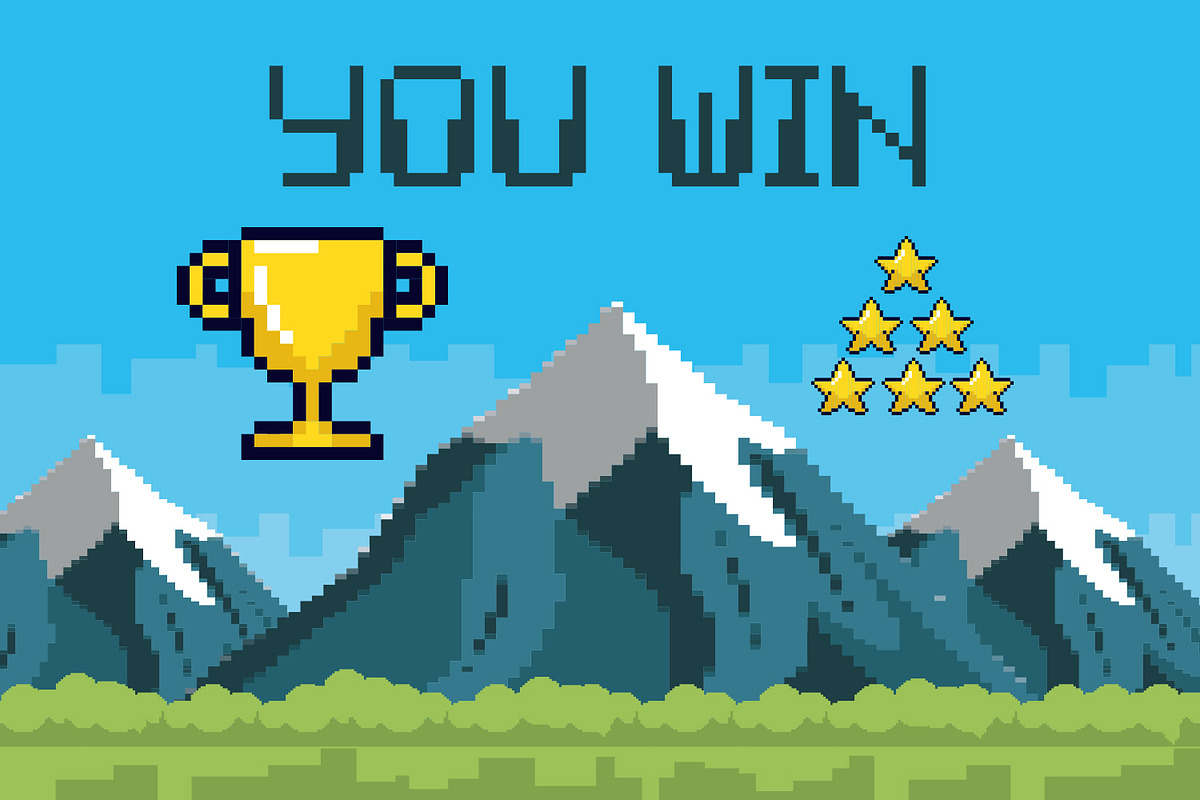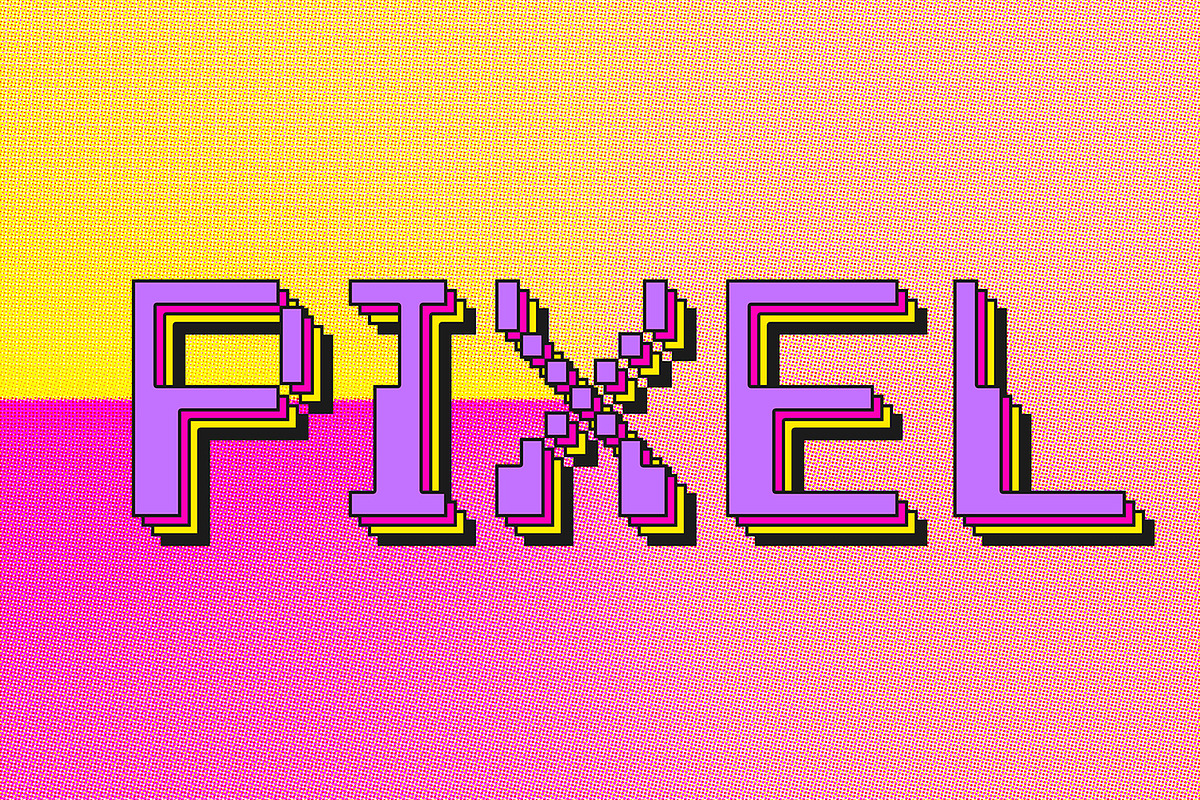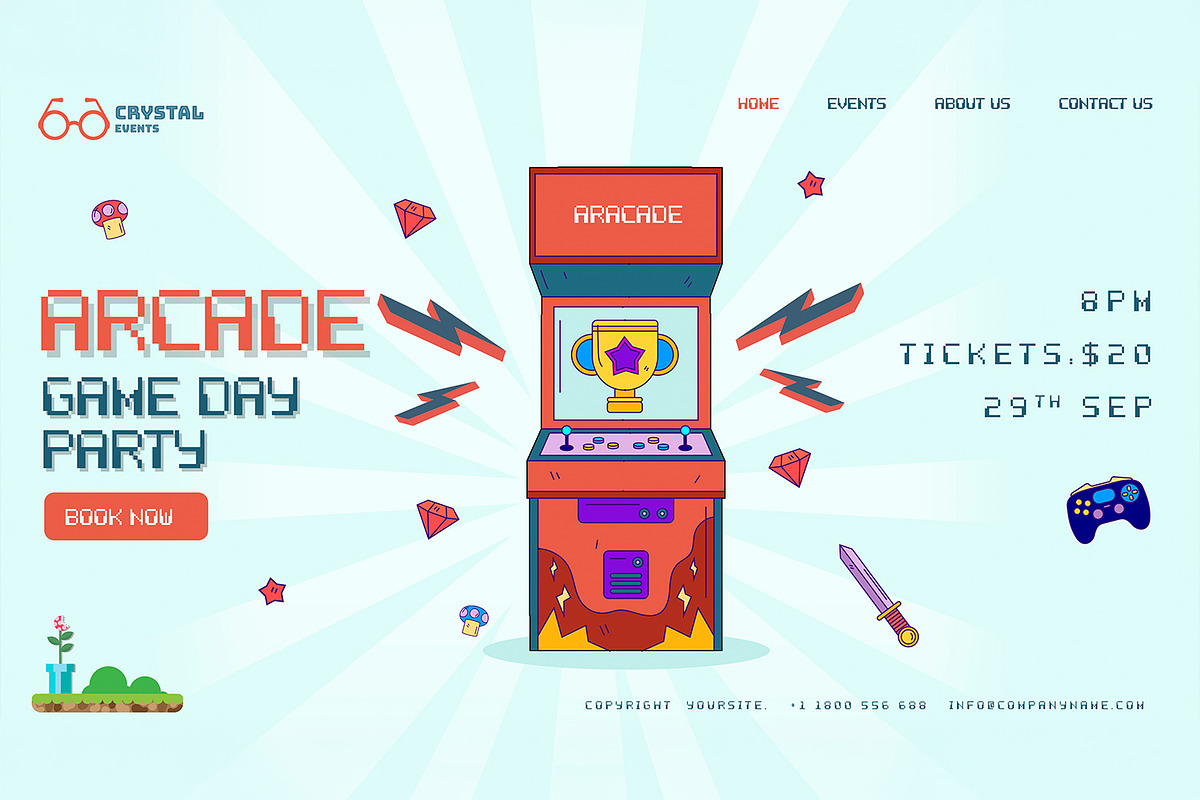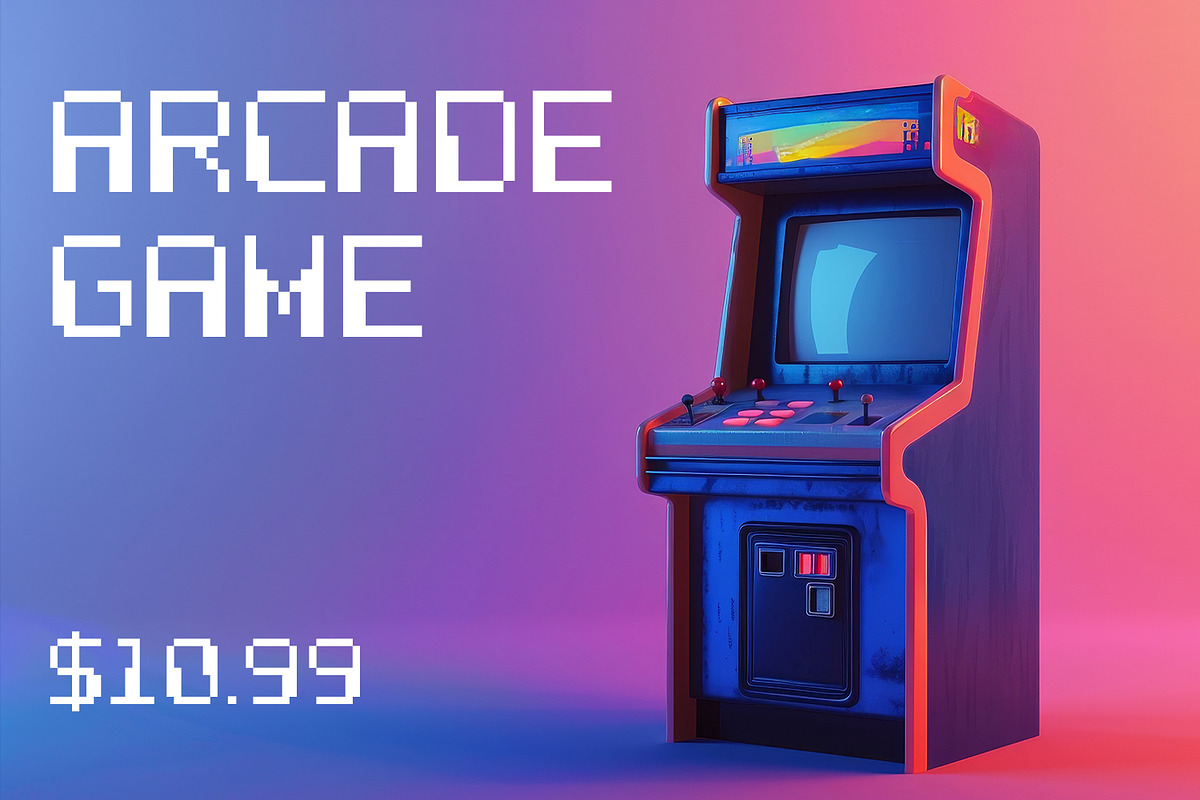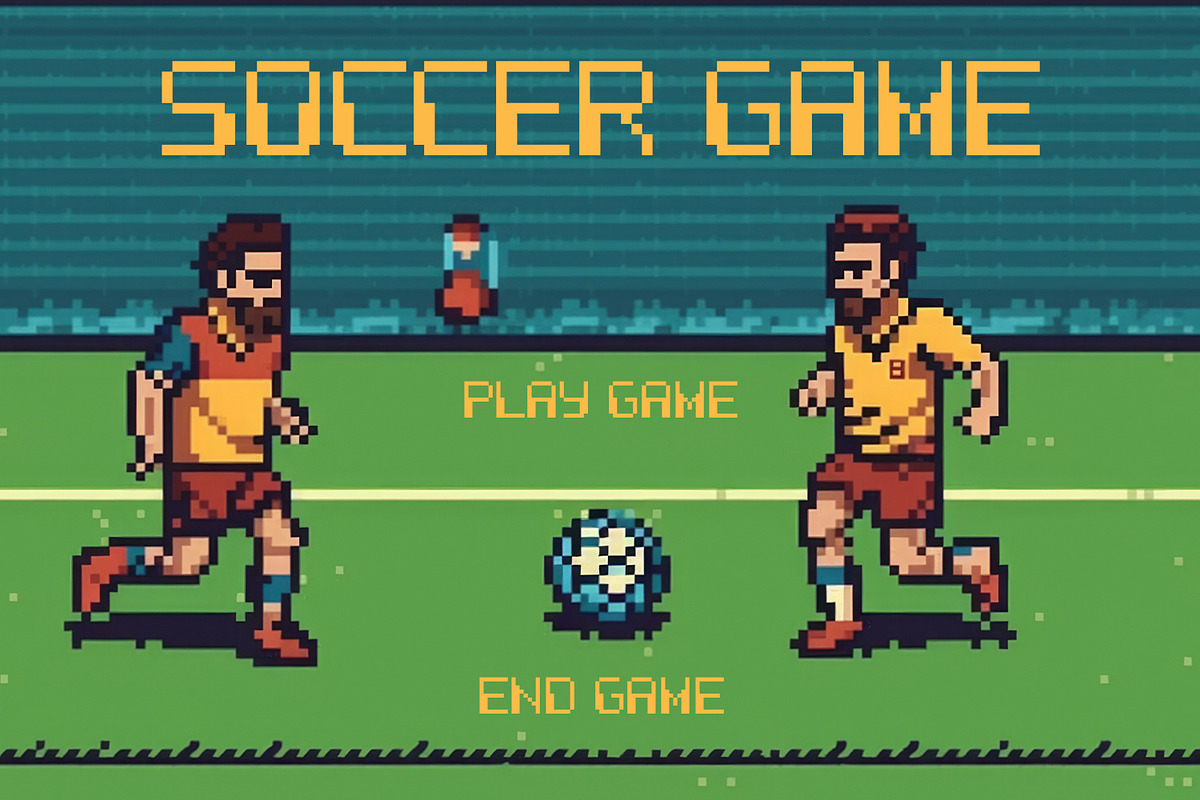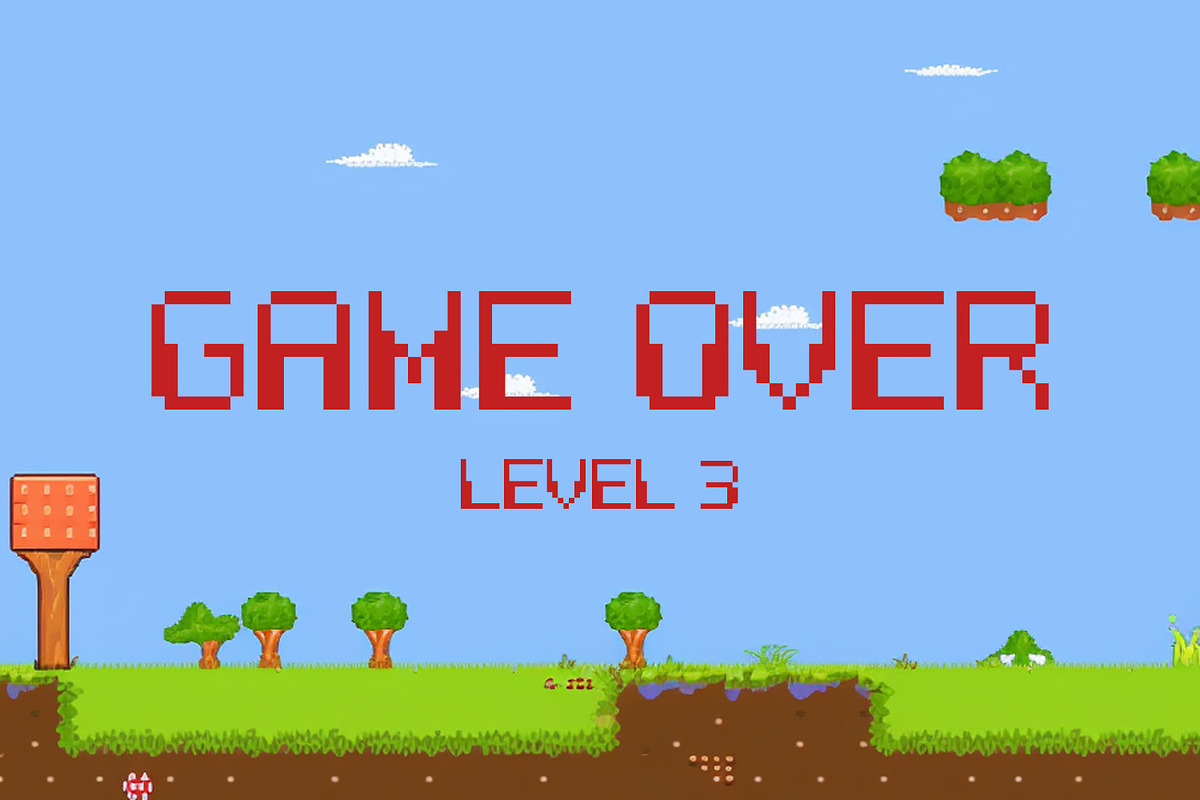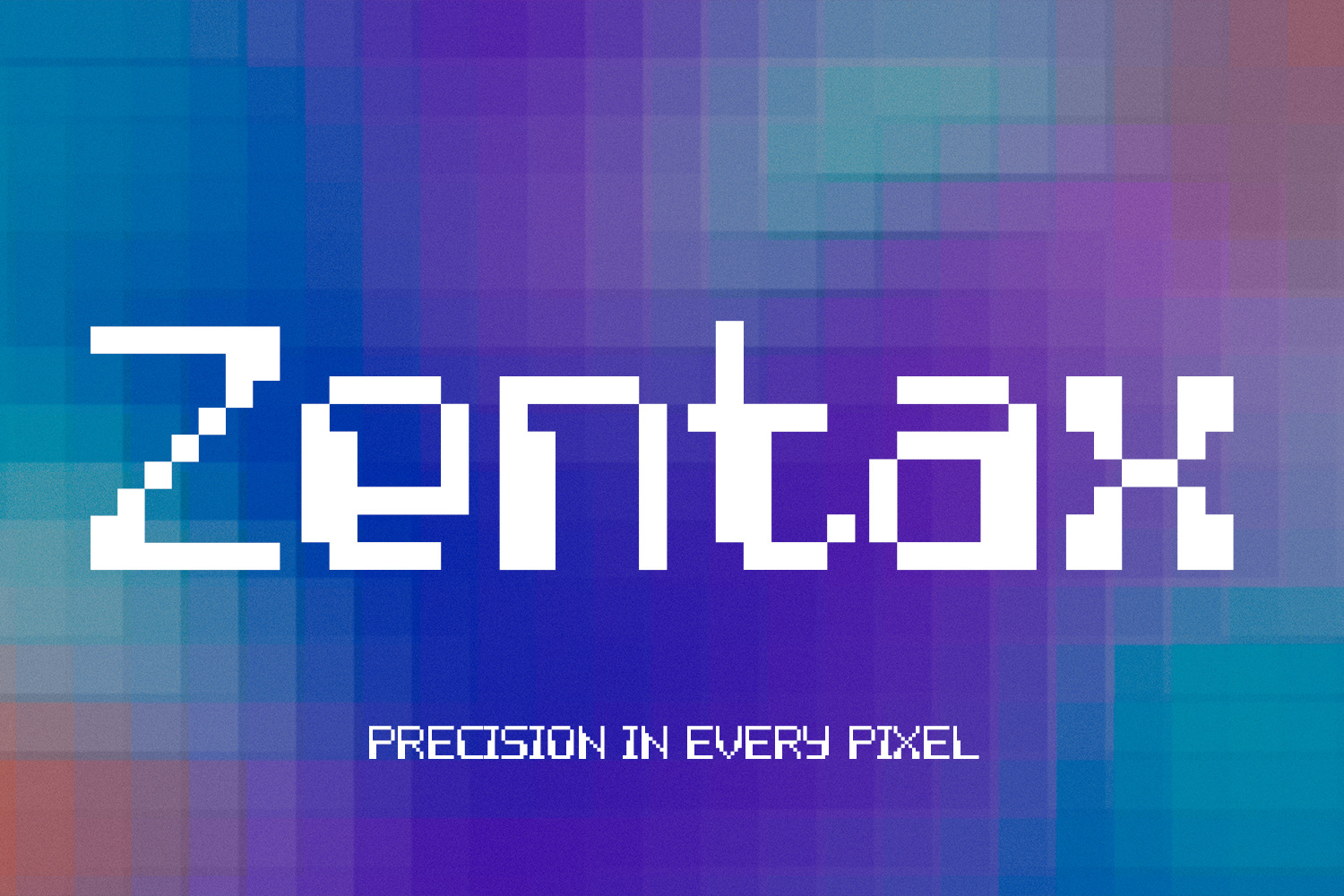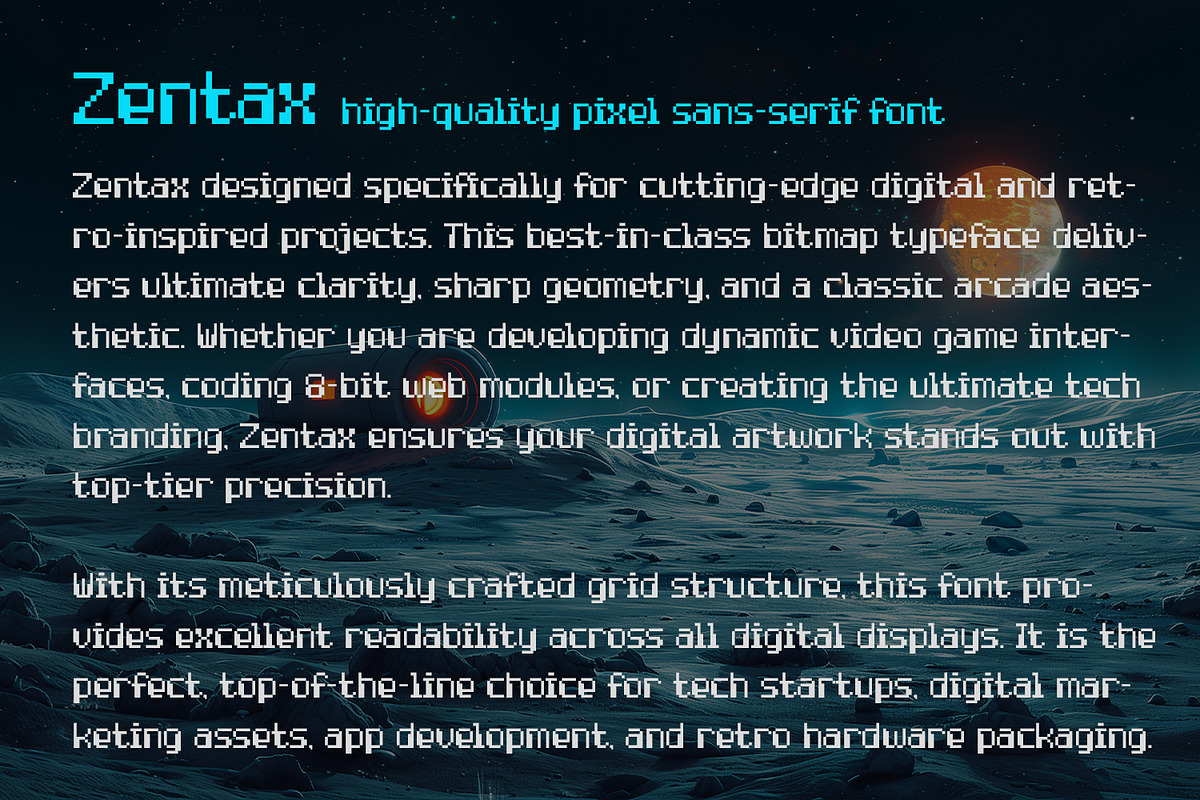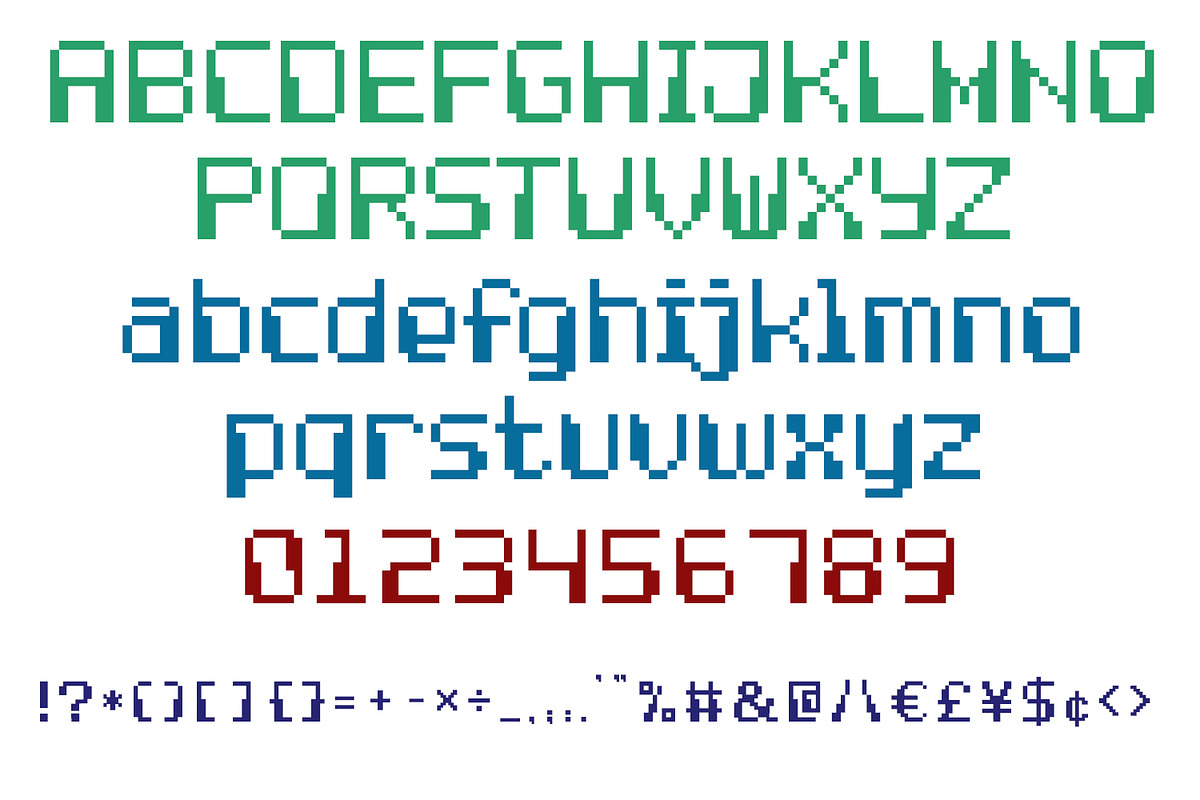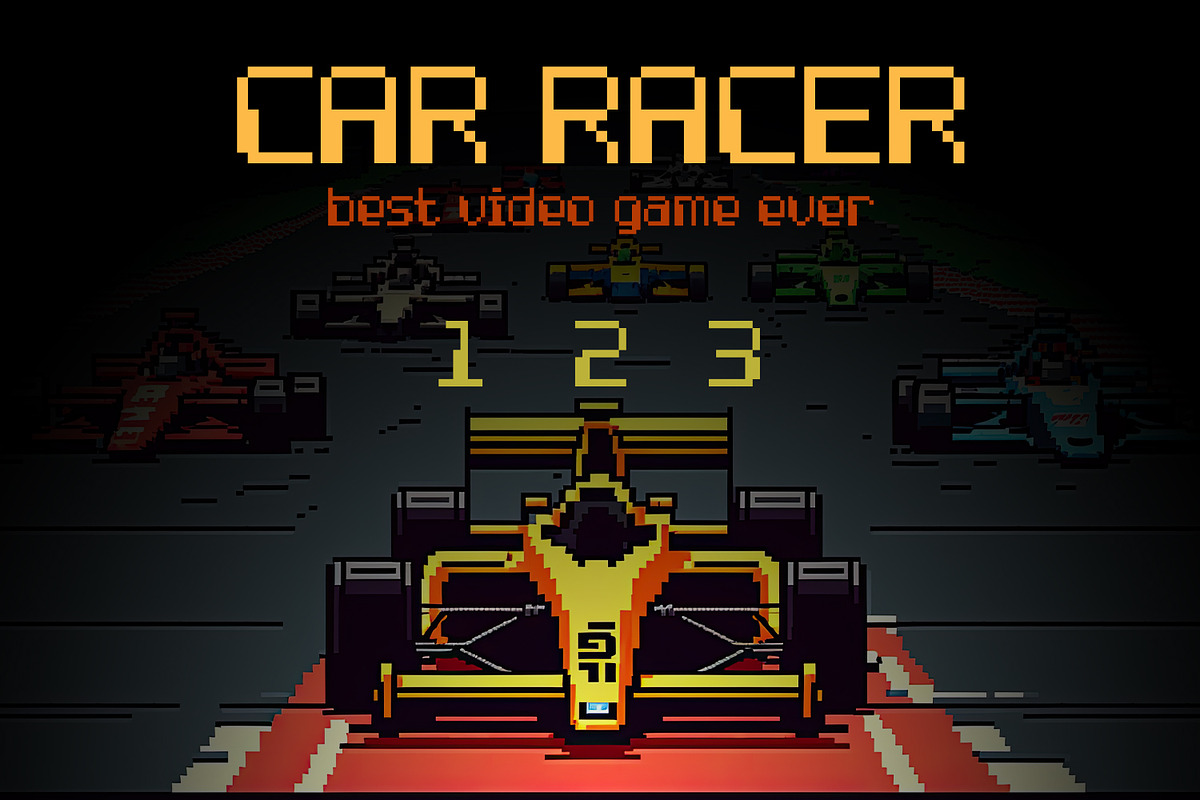
Zentax Bitmap Sans Serif Font
Zentax is a premium and highly detailed pixel font designed for modern and retro digital projects. This best-in-class bitmap typeface brings a strong, classic arcade aesthetic to your designs. Whether you are building digital interfaces, designing gaming graphics, or creating high-quality technology branding, Zentax offers the ultimate clarity and a striking retro-digital vibe. With its meticulously crafted grid structure, this font provides excellent readability across all digital displays. It is the perfect, top-of-the-line choice for tech startups, digital marketing assets, app development, and retro hardware packaging.